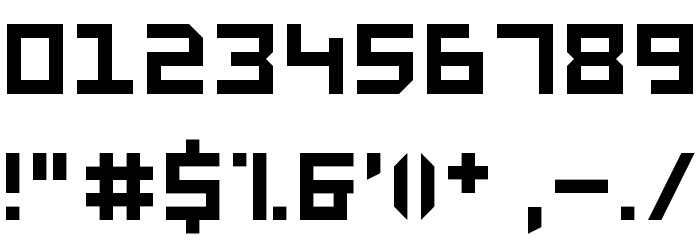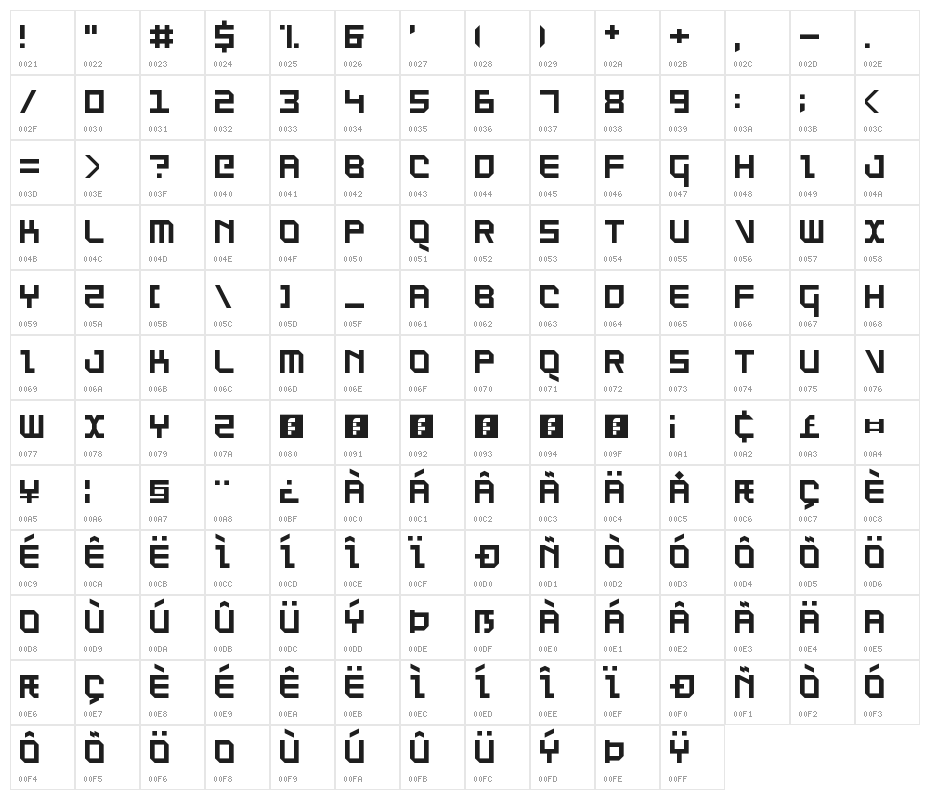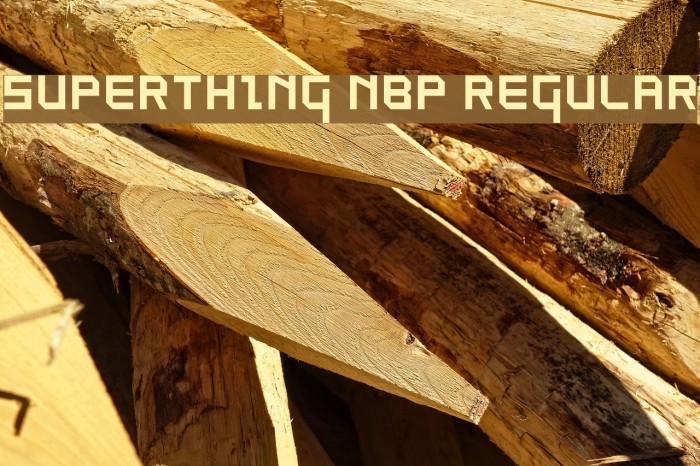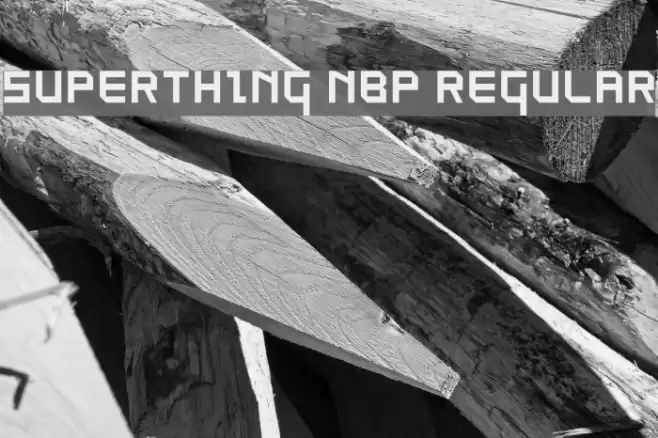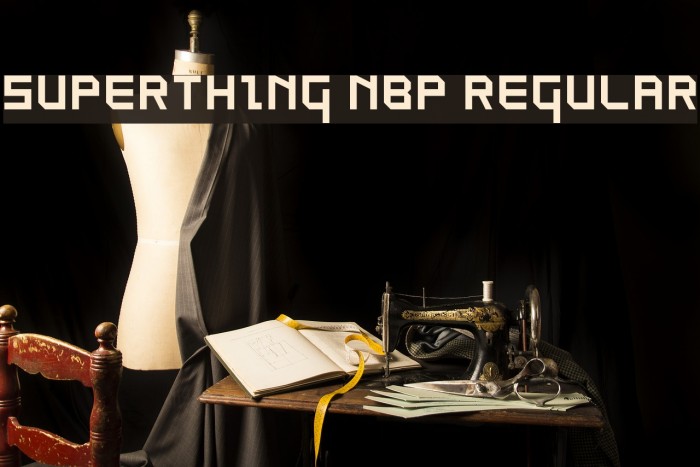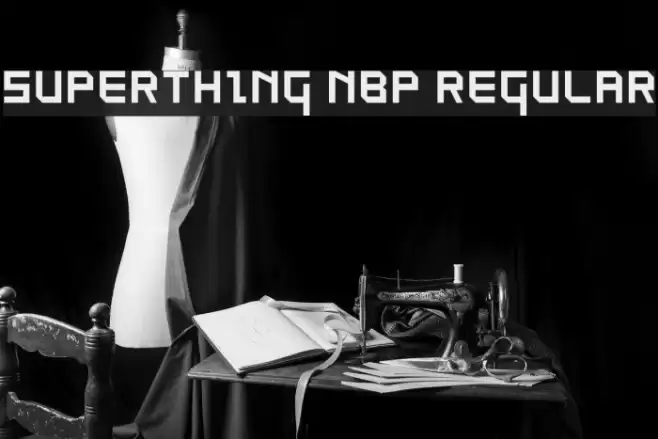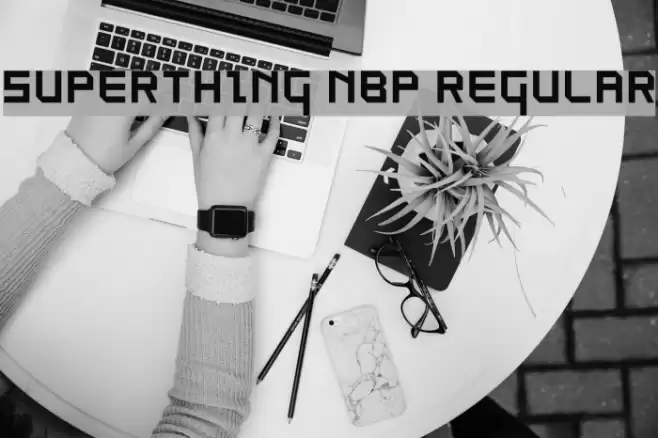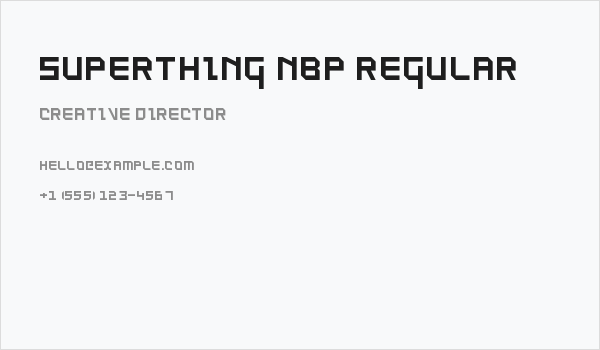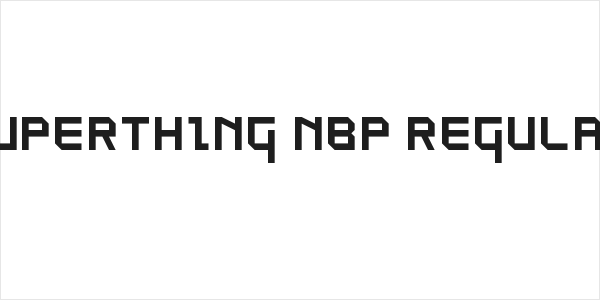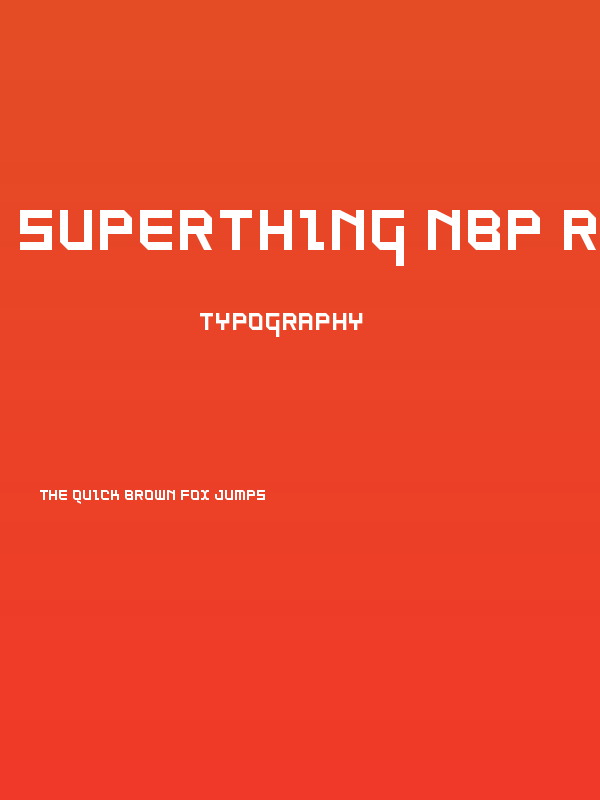
SuperThing NBP Regular Font
SuperThing NBP Regular Description
This font features a bold, geometric design with a futuristic and digital aesthetic. The characters are constructed with sharp angles and straight lines, giving it a blocky and robust appearance. The uppercase and lowercase letters maintain a consistent height, enhancing its uniformity. The numbers and special characters follow the same angular style, making them easily recognizable and cohesive with the overall design. The font's distinct style makes it ideal for projects that require a modern and tech-savvy look.
| Use Case | Logos, Headlines, Digital interfaces |
| Proposed Projects | Ideal for tech-related branding, video game design, digital interfaces, and futuristic posters. |